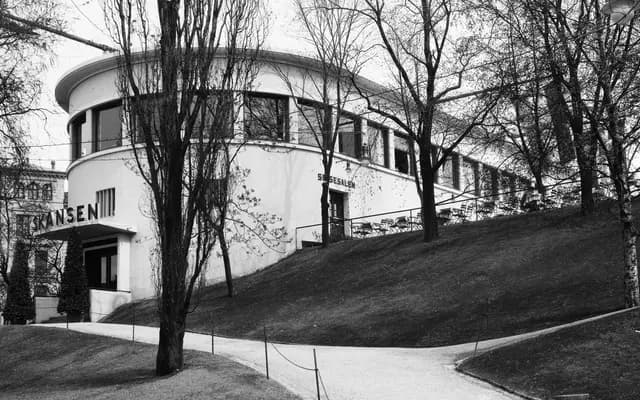
Store Norske Arkitekt
Store Norske Skriftkompani · Arve Båtevik
A geometric sans by Arve Båtevik rooted in Norwegian functionalist architecture and the lettering traditions of 1920s–30s Nordic building signage.
Drawing on historical alphabets by Trygve M. Davidsen and Per Grieg, alongside the forms of landmark Norwegian functionalist buildings, the typeface applies the period's governing concerns of clarity, proportion and practical reasoning to a contemporary type system. Rather than simple pastiche, it is grounded in pre-functionalist typographic knowledge, giving it the structural confidence the best architects of that era brought to their work. Suited to identities, signage, exhibitions and institutional communication with ties to architecture and public culture.
The typeface is explicitly described as geometric, drawing on pure circular and rectilinear forms from Norwegian functionalist architecture and historical geometric lettering alphabets of the 1920s–30s.